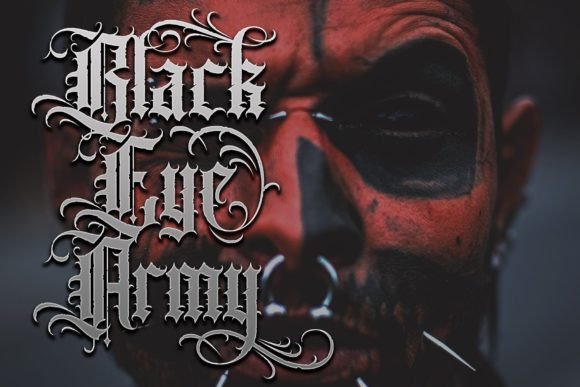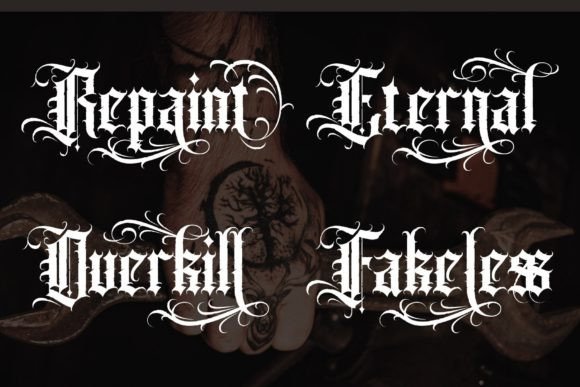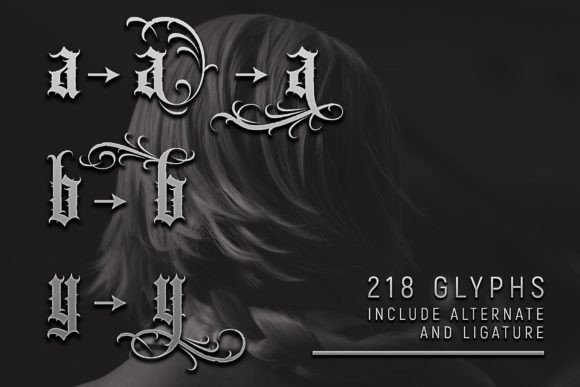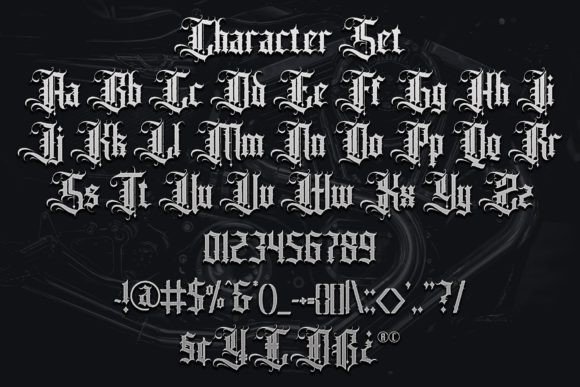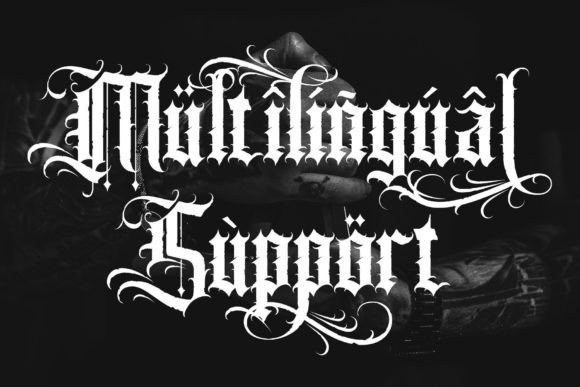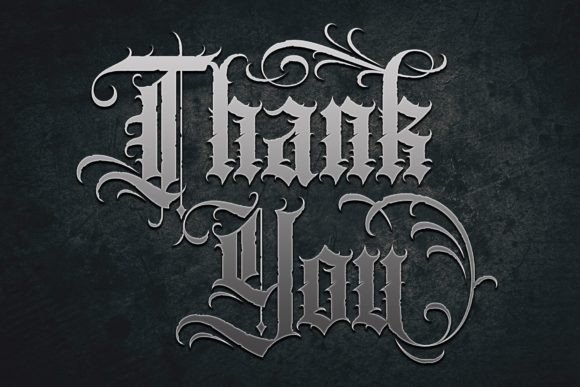
Introduction to Remedies Font
There’s nothing quite like the rush of excitement that comes with starting a new creative project. You’ve got a spark of an idea, a vision for how you want to express yourself, and a blank canvas waiting to be filled. But sometimes, that spark can be stifled by the lack of the perfect design resource. This is where the Remedies Font comes in – a stunning contemporary blackletter tattoo font that’s guaranteed to breathe life into your creative endeavors.
- Unique characteristics include a modern, sleek aesthetic and a range of customizable styles, making it an excellent choice for creative projects.
Honest Review: Remedies Font
I recently stumbled upon the Remedies Font and I must say, I was pleasantly surprised. As a designer, I’m always on the lookout for high-quality design resources to elevate my creative projects. The Remedies Font definitely fits the bill.
- ✨ Beautiful, modern design aesthetic that’s perfect for a variety of creative projects
- ✨ High-quality font files that are crisp and clear, even at smaller font sizes
- ✨ Works well with a transparent background, adding an extra layer of depth to your designs
- ⚠️ Limited font sizes and styles, which may not be ideal for complex design projects
- ⚠️ Not as versatile as some other fonts, which may not be suitable for all design applications
Overall, I’d say the Remedies Font is a solid addition to any designer’s toolkit. While it may not be the most versatile font out there, its unique design aesthetic and high-quality files make it a great resource for creative projects. Plus, the free download is a major bonus!
The Remedies Font is ideal for:
Logo design
Brochure design
Poster design